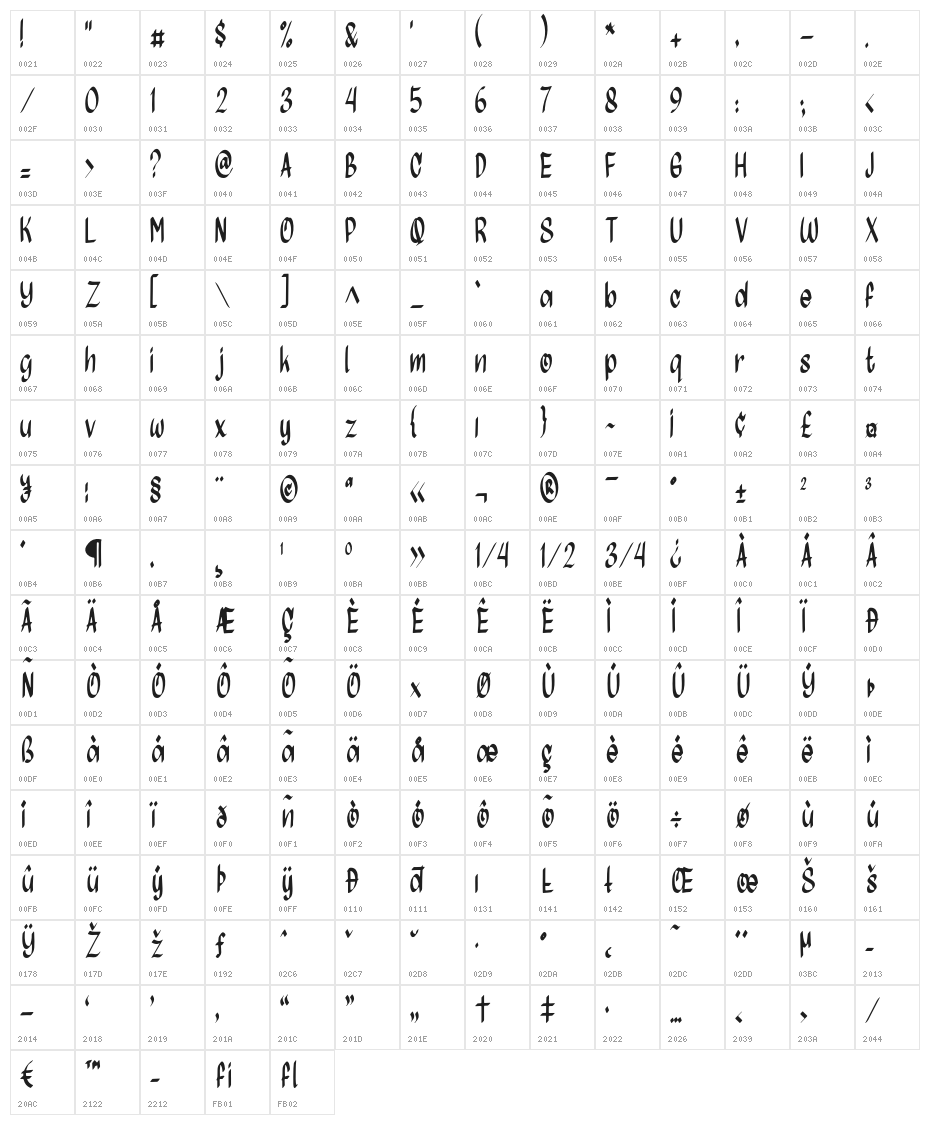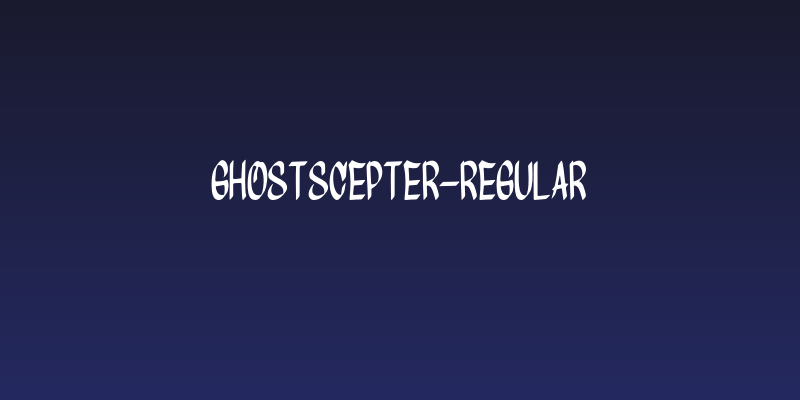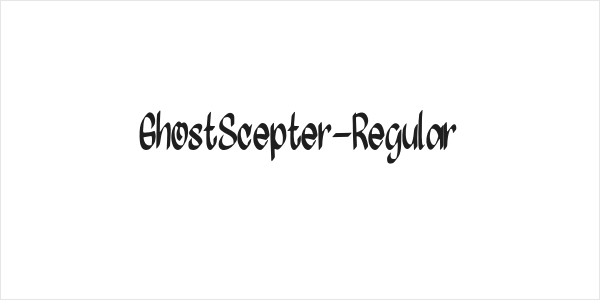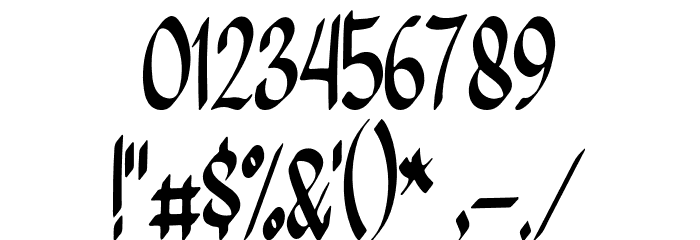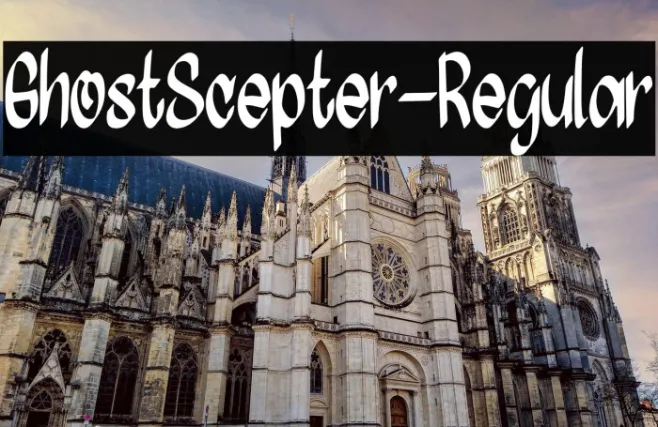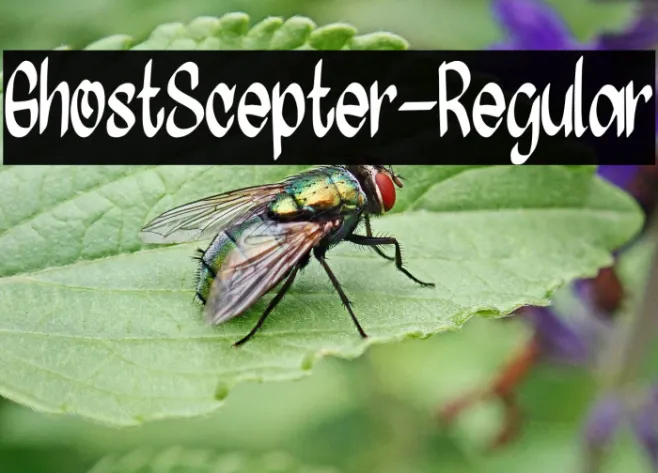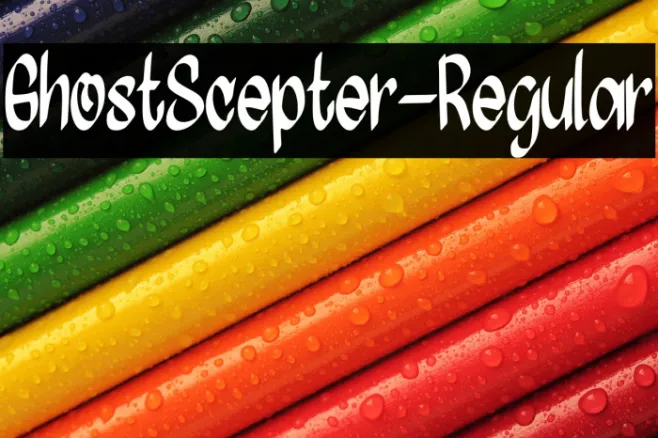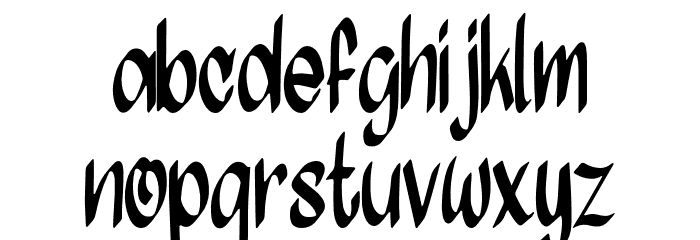
GhostScepter-Regular Font
GhostScepter-Regular Description
This font features a dynamic and energetic style with a hand-drawn appearance. The letters are slightly slanted, giving a sense of movement and fluidity. The strokes are bold and varied, with a playful yet edgy character. The uppercase letters are tall and narrow, while the lowercase letters maintain a consistent height, adding to the cohesive look. The numbers and special characters follow the same design principles, ensuring uniformity across all glyphs. This font is ideal for projects that require a touch of personality and flair.
| Use Case | Logos, Posters, Creative projects |
| Proposed Projects | Perfect for branding, posters, and creative projects that need a lively and unique touch. |